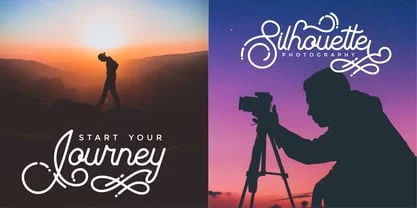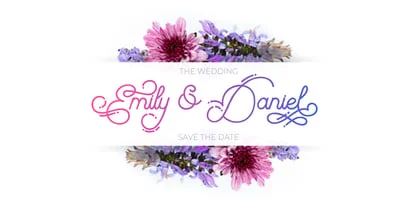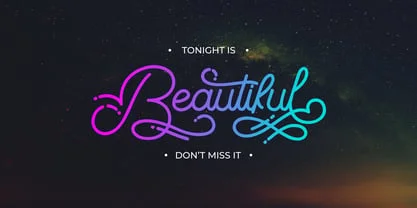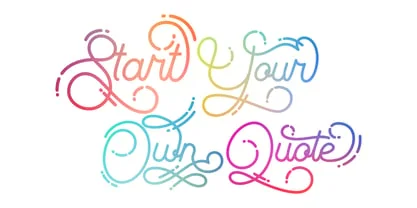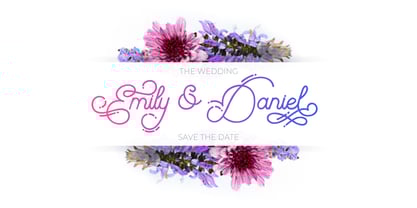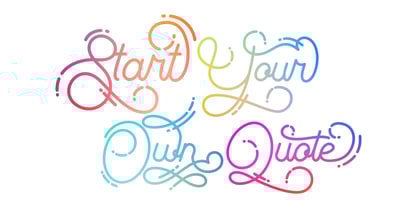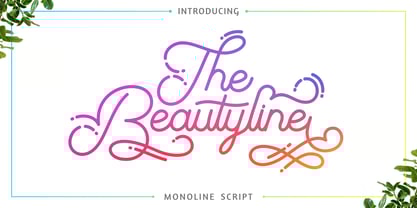
The Beautyline Font
Few typefaces manage to balance the kind of restraint that lets content lead with genuine day-to-day practicality. The Beautyline is one of them. The typeface brings an elegant, calligraphic sensibility to a broad range of creative disciplines, with versatility across print and screen contexts that holds up whether the work is print-first or screen-first.
In practice, The Beautyline proves particularly effective for packaging design, high-end cosmetic packaging, event signage, social media graphics, fragrance labels. Designers reaching for it find that the type decisions feel resolved rather than laboured — a useful quality when client timelines are tight.
The range of applications extends to environmental graphics, fashion editorials, perfume labels, bridal materials. That breadth is deliberate: the proportions and spacing were stress-tested across a wide range of mock briefs before the typeface was finalised.
The consistent rhythm of The Beautyline across a full paragraph creates the kind of even grey value that makes extended reading comfortable, a detail that matters more in long-form content than its subtlety might suggest.
Freelance designers across print and digital disciplines find The Beautyline a reliable choice for projects that demand both personality and restraint. The design avoids the self-conscious quirkiness that dates quickly, settling instead for considered distinctiveness that holds up over time.